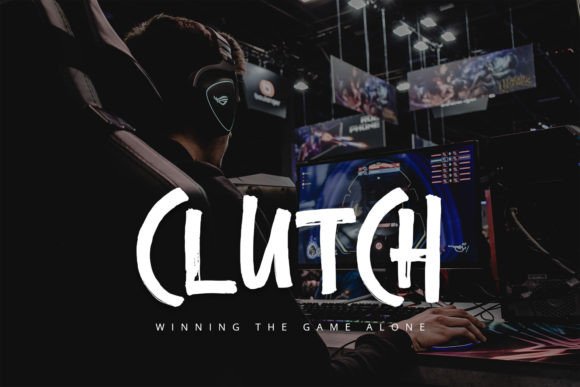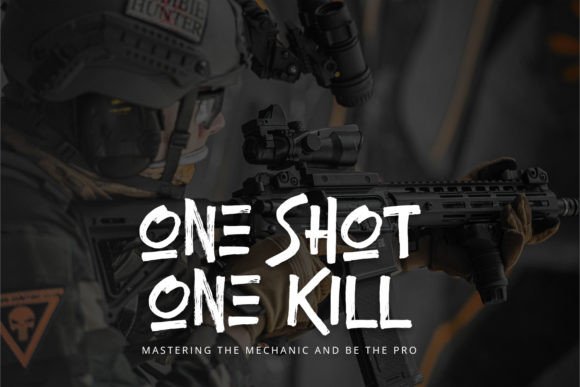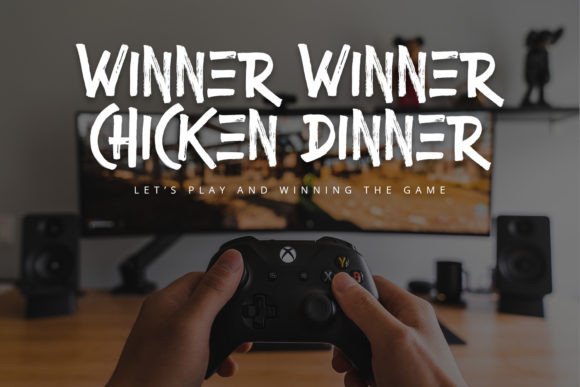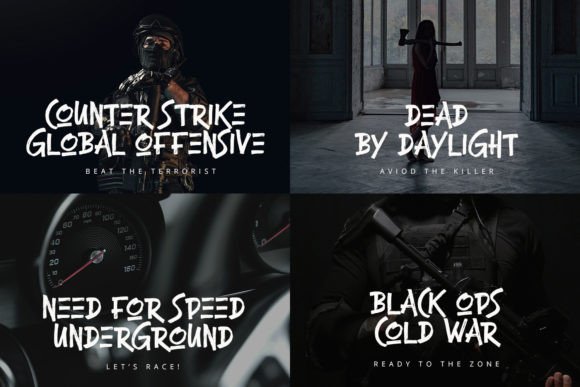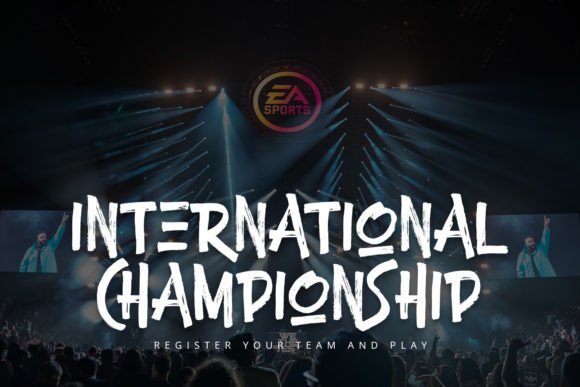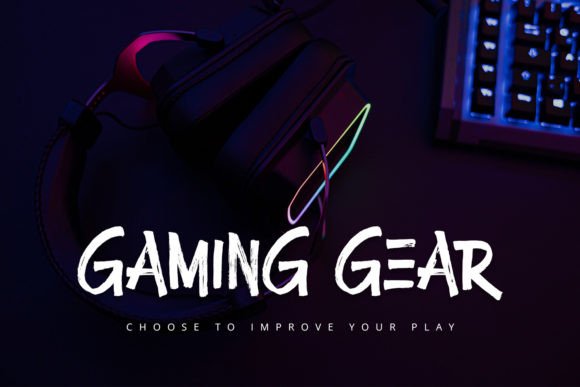
Introducing Champion Font: The Ultimate Brush Display Font for Creative Expression
Are you tired of using the same old fonts for your creative projects? Look no further! Champion Font is here to revolutionize the way you express yourself through typography. This brush display font is designed to bring an authentic and casual feel to your designs, making it perfect for crafters, designers, and anyone looking to add a personal touch to their work.
The Story Behind Champion Font
Champion Font is more than just a font – it’s a tool designed to help you unleash your creativity. Its authentic and casual feel makes it perfect for a wide range of projects, from branding and advertising to packaging and digital media. The font’s masterful design ensures that it’s easy to read and understand, making it accessible to a wide audience.
What Makes Champion Font Stand Out?
- Authentic and Casual Feel: Champion Font has a unique, hand-crafted feel that sets it apart from other fonts. Its authentic and casual vibe makes it perfect for designs that require a personal touch.
- Masterfully Designed: The font’s design is carefully crafted to ensure that it’s easy to read and understand. The letters are carefully shaped and spaced to create a smooth, flowing look that’s easy on the eyes.
- Versatile: Champion Font is perfect for a wide range of projects, from digital media to print materials. Its versatility makes it a great addition to any designer’s toolkit.
How to Use Champion Font in Your Designs
Champion Font is perfect for a wide range of design projects, including:
- Branding and Advertising: Use Champion Font to create eye-catching logos, ads, and marketing materials that stand out from the crowd.
- Packaging Design: Add a personal touch to your packaging designs with Champion Font’s unique, hand-crafted feel.
- Digital Media: Use Champion Font to create engaging social media graphics, blog posts, and website headers that showcase your brand’s personality.
- Crafting and DIY Projects: Champion Font is perfect for crafters and DIY enthusiasts who want to add a personal touch to their projects.
Tips and Tricks for Getting the Most Out of Champion Font
Here are some tips and tricks for getting the most out of Champion Font:
- Experiment with Different Sizes and Colors: Champion Font looks great in a variety of sizes and colors. Experiment with different combinations to find the one that works best for your design.
- Pair it with Other Fonts: Champion Font pairs well with other fonts, making it easy to create unique and interesting typography combinations.
- Use it to Create a Consistent Brand Identity: Use Champion Font across all your marketing materials to create a consistent brand identity that stands out from the crowd.